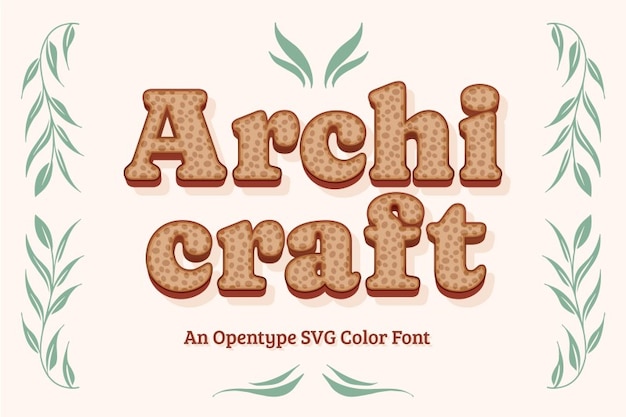
Embrace the architectural charm of Archi Craft—a font that seamlessly blends creativity with the rustic beauty of nature. Its decorative strokes evoke the craftsmanship of hand-carved designs, while the letters themselves seem to grow organically like vines. Each character tells a story of architectural elegance, making it the perfect choice for projects that seek a harmonious blend of the artistic and the natural. Whether you're crafting invitations, signage, or anything in between, Archi Craft transforms your text into an exquisite testament to the artistry of both man and nature. Let your designs flourish with the distinctive touch of Archi Craft!